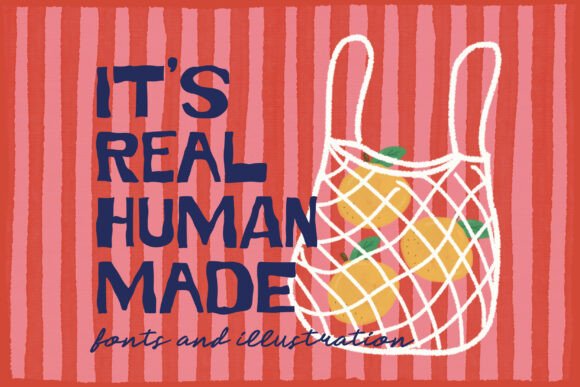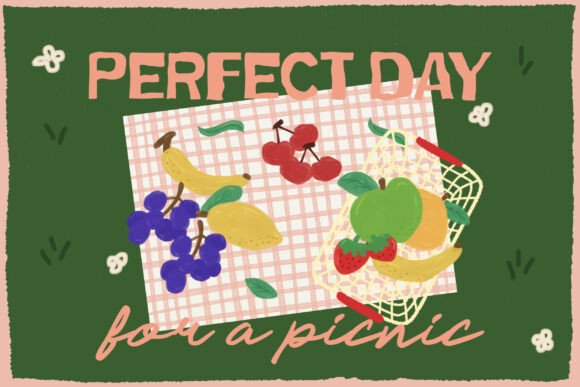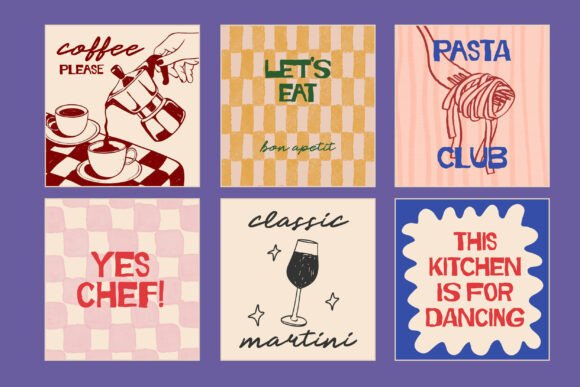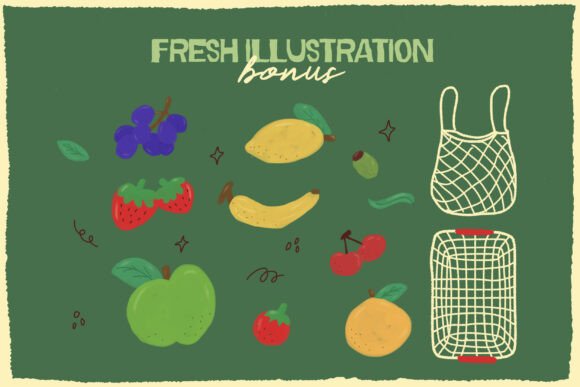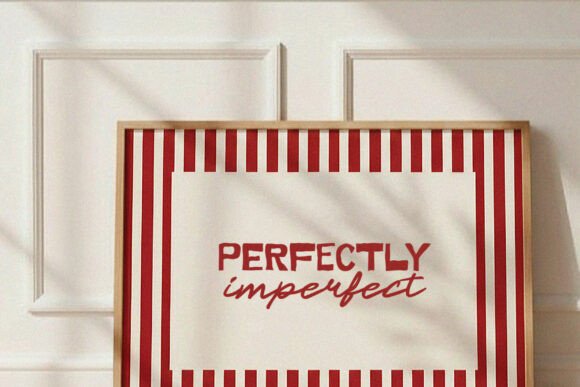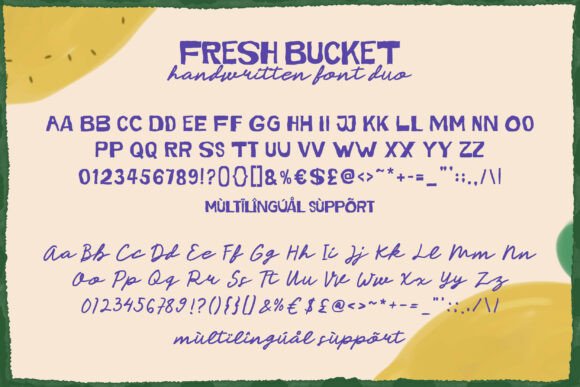
Introduction to Fresh Bucket Font Font
Fonts play a crucial role in design, and the Fresh Bucket Font font is a typeface that brings both character and versatility to any project. Whether you’re working on a branding project, a website, or a print design, the Fresh Bucket Font font offers a unique style that can elevate your work.
Introducing Fresh Bucket – a synesthetic fusion of the touch and visuals.
With its natural handwritten style and charming imperfections, this unique font duo brings an artisanal appeal to your designs Like a juicy surprise, Fresh Bucket comes with a delightful bonus – a set of beautifully illustrated fresh fruit icons.
Key Features of Fresh Bucket Font Font
Why Choose Fresh Bucket Font Font?
The Fresh Bucket Font font is more than just a typeface – it’s a design tool that helps you communicate your message with style and clarity. Its unique character set and versatile design make it suitable for a wide range of applications, from elegant invitations to bold headlines.
With its carefully crafted letterforms and balanced proportions, the Fresh Bucket Font font ensures readability and visual appeal across all mediums.
What makes Fresh Bucket Font font special?
The Fresh Bucket Font font stands out with its unique design, exceptional readability, and versatility across various design applications.